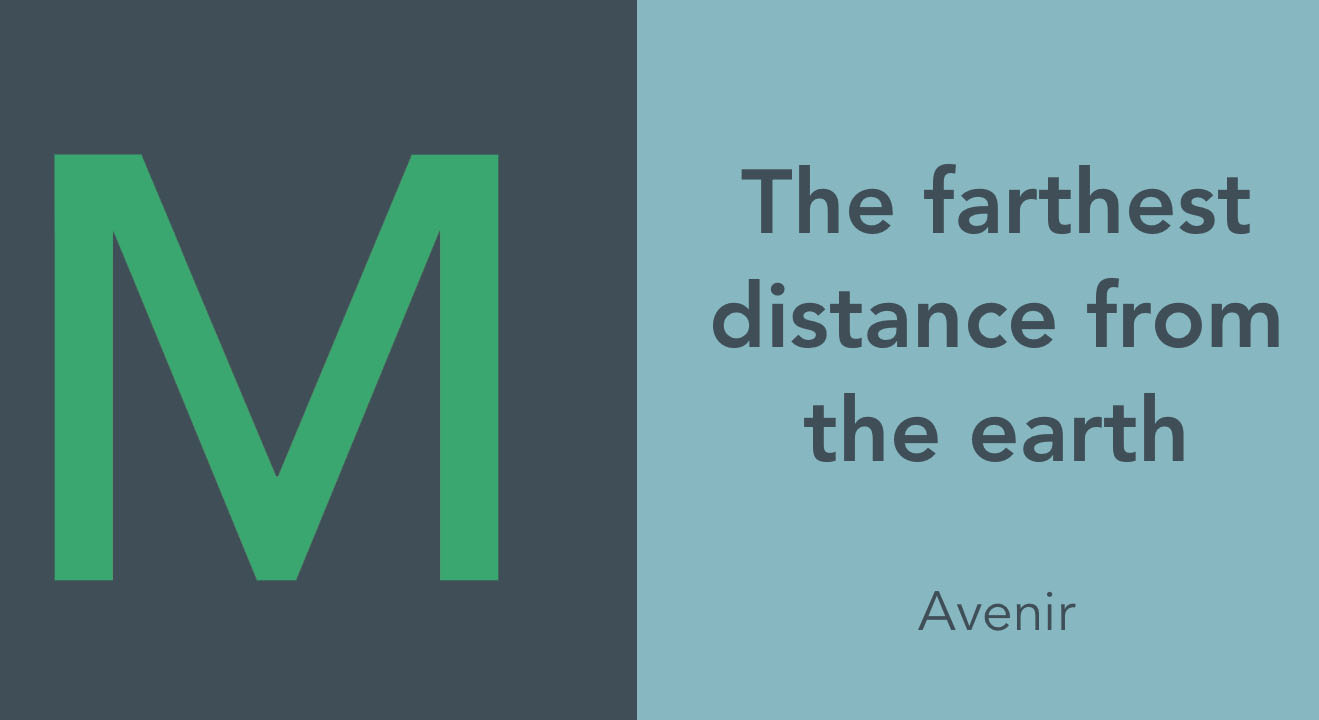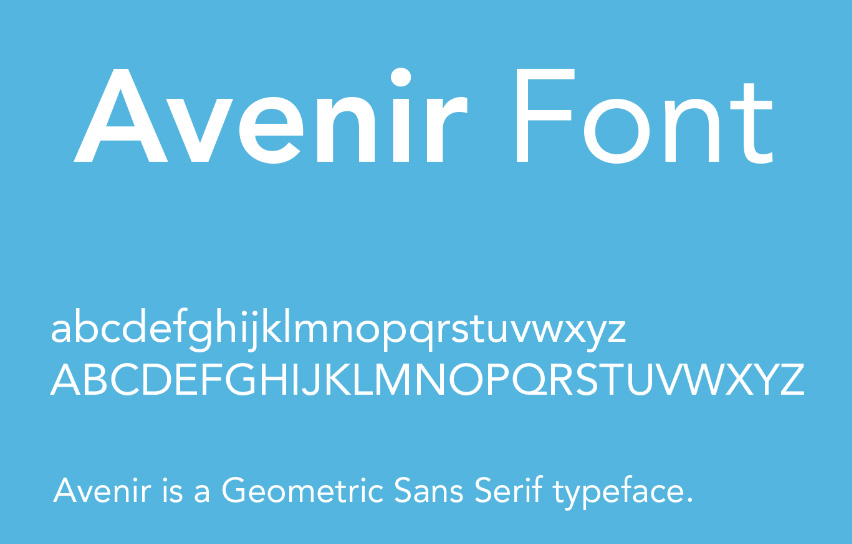
Avenir Font
Right here is the Avenir Font this is recognized for its bold and italic feature. This typeface falls under the category of outline fonts. This font is similar to the Amiri font. It belongs to a sans serif typeface family.